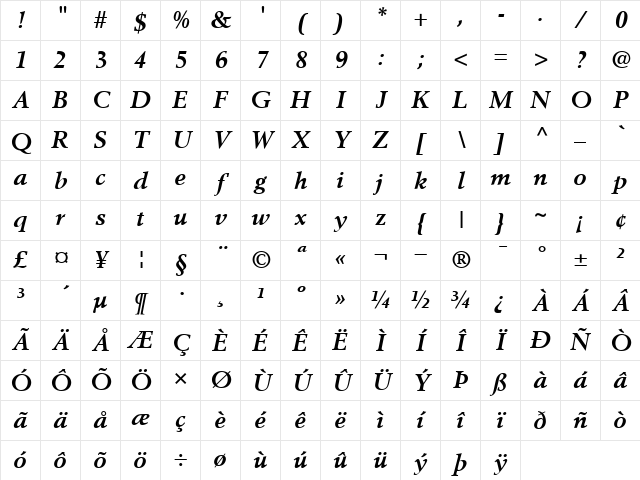
Berling BoldItalic
Complete Berling BoldItalic glyph index. Displaying only characters natively supported by Berling BoldItalic font.
Design Context for Berling
Berling is a composed and adaptable typeface that performs quietly and consistently across a wide range of design contexts. The slanted form adds forward momentum and visual energy. Its bold stroke weight gives it real presence on the page.
Pro Tip: Use Berling for emphasis, pull quotes, and subheadings where its slanted energy can add rhythm to the layout.